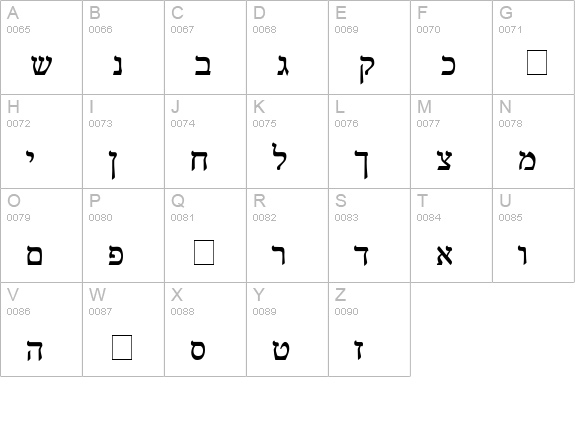
Reuven Normal is the standard, neutral variant in the Reuven typeface family \xE2\x80\x94 well suited to general body text, paragraphs, and standard typographic work.
Reuven Normal font is a delightful and versatile typeface that is perfect for any project. Its clean lines and classic design make it suitable for both professional and creative work. The font exudes a sense of elegance and sophistication, while still maintaining a modern and contemporary look. With its wide range of weights and styles, Reuven Normal font offers endless possibilities for customization. Whether you're designing a logo, creating a website, or working on a brochure, this font will elevate your work to the next level. One of the best things about Reuven Normal font is that it is absolutely free. You read that right – you can download this incredible font for free at FontsMarket.com. This means that you can enjoy all the benefits of Reuven Normal font without breaking the bank. It's a win-win situation! So why wait? Head over to FontsMarket.com and download Reuven Normal font today. It's time to unleash your creativity and make your designs shine with this amazing and freely available font. Don't miss out on this opportunity to elevate your work and make a lasting impression. Download Reuven Normal font now and see the difference it can make in your projects.